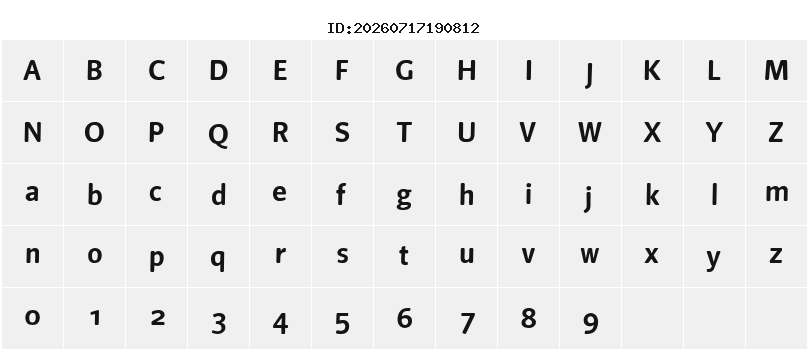
BeoSans4 Preview
• Font Name: BeoSans4
• Full Font Name: BeoSans4
About BeoSans4.ttf
BeoSans4.ttf is a modern, elegant sans-serif font designed for ultimate readability and visual harmony. Perfect for branding, headlines, web design, and print materials.